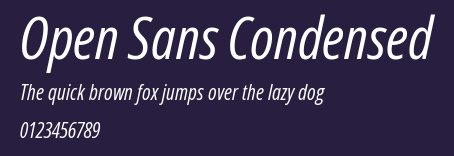
• Font Name: Open Sans Condensed
• Full Font Name: Open Sans Condensed Italic
• Designer: Monotype Design Team
• Description: Designed by Monotype design team.
About Open Sans Condensed.ttf
Open Sans Condensed.ttf is a modern, elegant sans-serif font designed for ultimate readability and visual harmony. Perfect for branding, headlines, web design, and print materials.